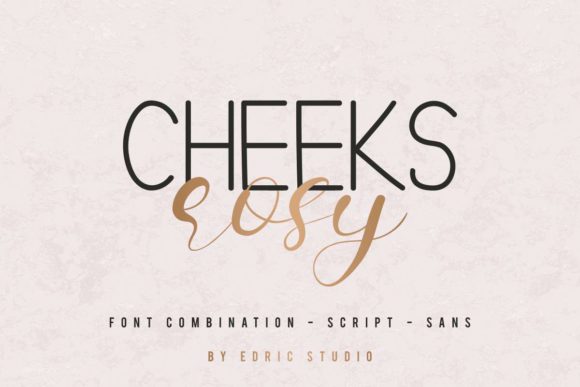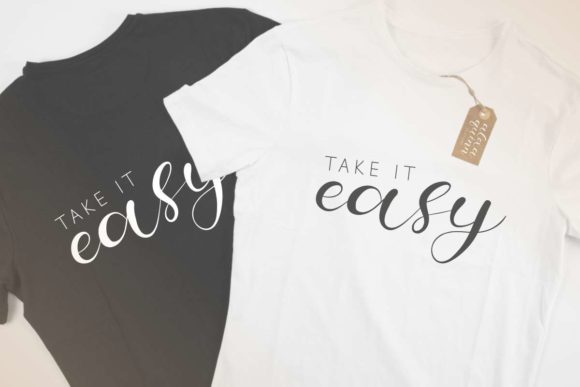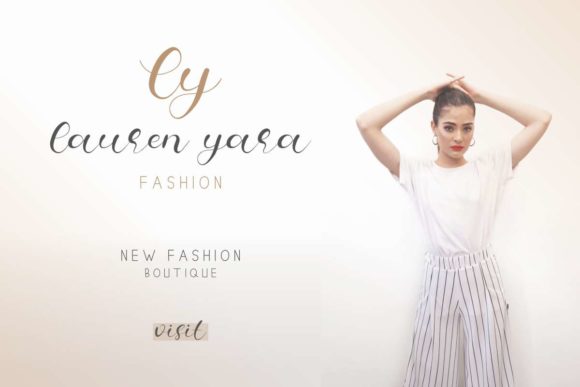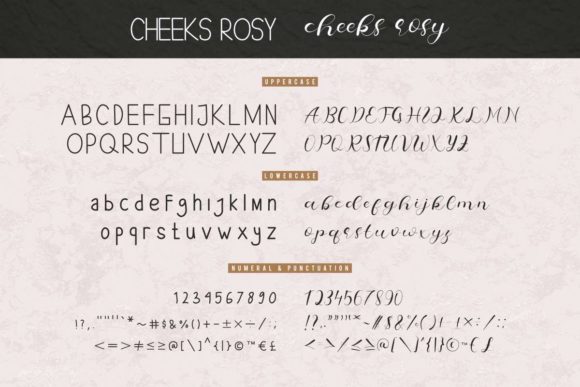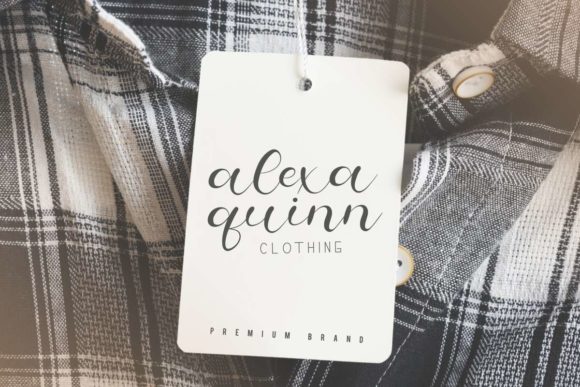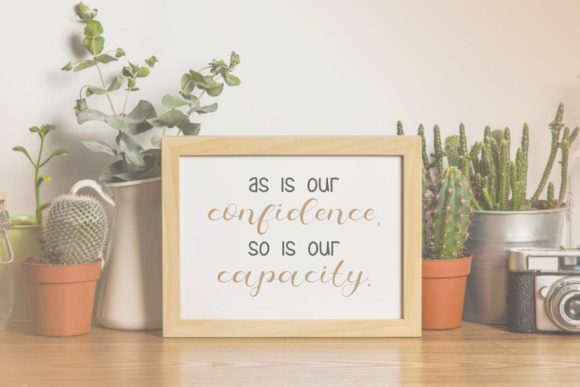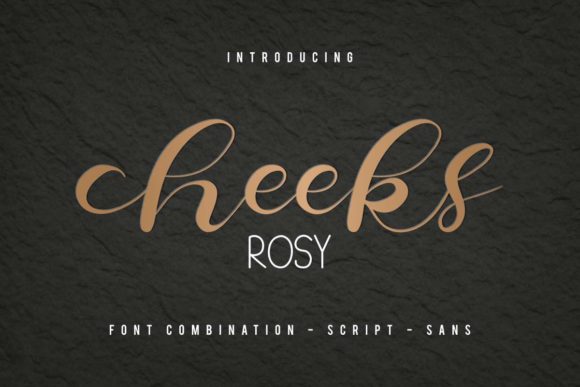
Introducing Cheeks Rosy Font: The Perfect Blend of Elegance and Friendliness
Are you a designer or crafter looking for a font that exudes timeless elegance and authentic calligraphy? Look no further than Cheeks Rosy Font. This magical script font is carefully crafted with a touch of sophistication, making it the perfect addition to your design arsenal. In this article, we’ll dive into the world of Cheeks Rosy Font, exploring its features, benefits, and uses.
The Perfect Blend of Classic and Friendly
Cheeks Rosy Font boasts an incredibly classic style, reminiscent of traditional calligraphy. However, what sets it apart is its friendly feel. This font is designed to be approachable and inviting, making it perfect for designs that require a touch of warmth and personality. Whether you’re creating wedding invitations, branding materials, or packaging designs, Cheeks Rosy Font is sure to impress.
Timeless Elegance and Authentic Calligraphy
Cheeks Rosy Font is a beautiful combination of timeless elegance and authentic calligraphy. The font’s intricate details and flowing lines evoke a sense of luxury and sophistication, making it perfect for high-end designs. The authentic calligraphy feel adds a touch of human touch, making your designs stand out from the crowd.
Features of Cheeks Rosy Font
- Magical Script Font: Cheeks Rosy Font is a script font that is carefully crafted to resemble handwriting.
- Elegant and Sophisticated: The font features an incredibly classic style, perfect for high-end designs.
- Friendly Feel: Despite its classic style, Cheeks Rosy Font has a friendly and approachable feel.
- Authentic Calligraphy: The font is designed to mimic authentic calligraphy, adding a touch of human touch to your designs.
Uses of Cheeks Rosy Font
Cheeks Rosy Font is a versatile font that can be used in a variety of design projects. Here are some ideas to get you started:
- Wedding Invitations: The font’s elegant and sophisticated style makes it perfect for wedding invitations and other wedding-related designs.
- Branding Materials: Use Cheeks Rosy Font to create luxurious and high-end branding materials, such as logos, business cards, and letterheads.
- Packaging Designs: The font’s friendly feel makes it perfect for packaging designs that require a touch of warmth and personality.
- Stationery: Create beautiful and elegant stationery, such as notebooks, journals, and greeting cards, using Cheeks Rosy Font.
Why Choose Cheeks Rosy Font?
With so many fonts available, why choose Cheeks Rosy Font? Here are just a few reasons:
- Unique and Original: Cheeks Rosy Font is a unique and original font that will make your designs stand out from the crowd.
- High-Quality Design: The font is carefully crafted with attention to detail, ensuring a high-quality design that will impress.
- Versatile: Cheeks Rosy Font can be used in a variety of design projects, from wedding invitations to branding materials.
In conclusion, Cheeks Rosy Font is a magical script font that is perfect for designers and crafters looking for a touch of elegance and friendliness in their designs. With its timeless elegance, authentic calligraphy, and friendly feel, this font is sure to impress. Whether you’re creating wedding invitations, branding materials, or packaging designs, Cheeks Rosy Font is the perfect choice. So why wait? Download Cheeks Rosy Font today and take your designs to the next level.